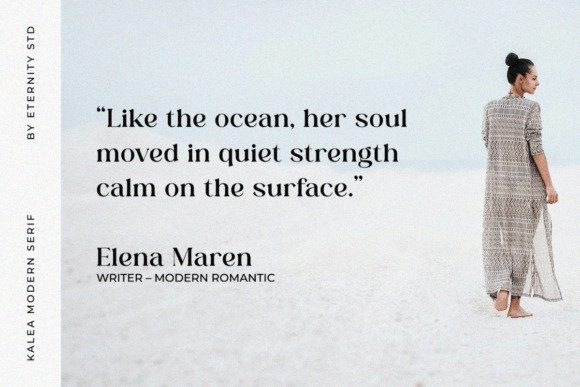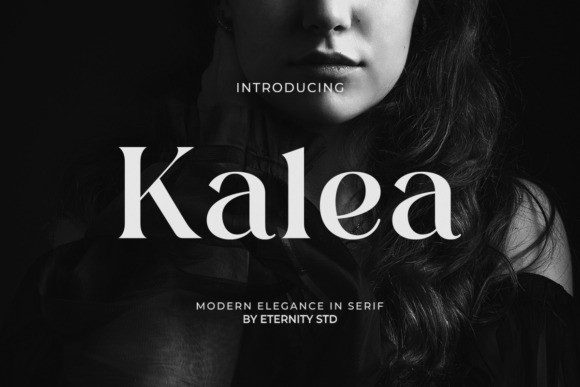
Kalea Font
Kalea Font is a Modern Elegance Serif that embodies timeless beauty and sophistication.With its refined strokes and graceful curves, this typeface captures the essence of modern luxury — perfect for designers who value subtle elegance and a polished aesthetic.
Whether you’re crafting fashion branding, editorial layouts, wedding invitations, product packaging, or logo designs, ET Kalea will elevate your work with a high-end, feminine touch.
Each letter was thoughtfully designed to balance style and readability, making it both versatile and captivating for any creative project.